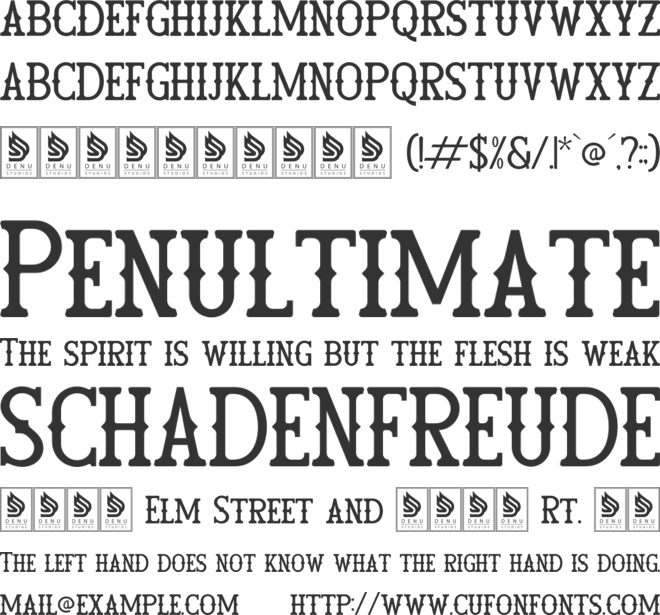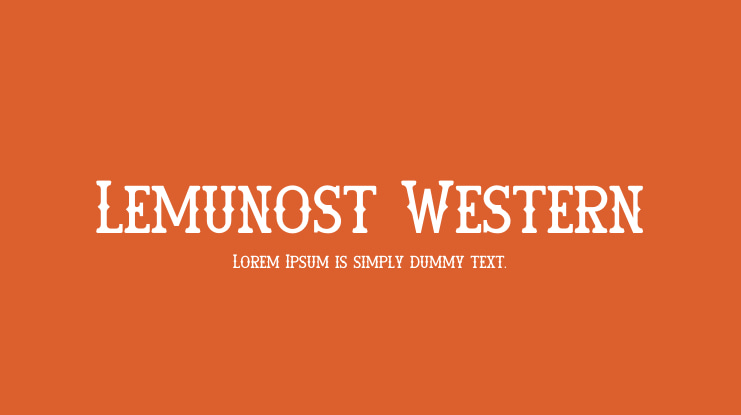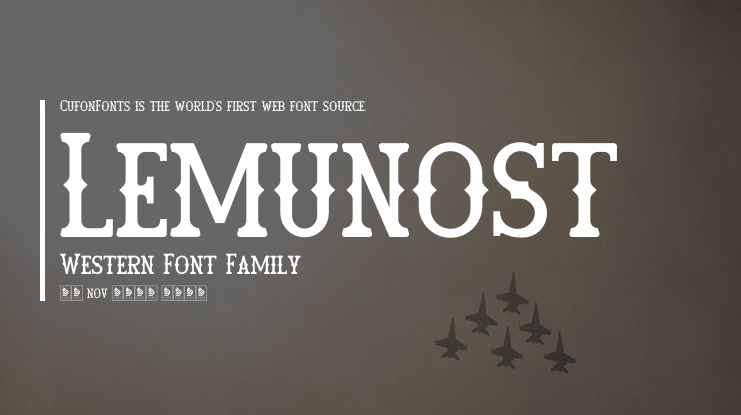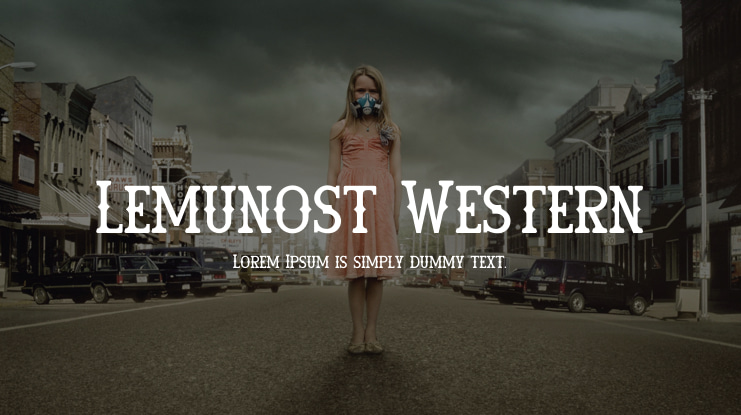
Lemunost Western is a stylish Slab Serif Font ideal for various projects such as logos, branding, homeware designs, product packaging, quotes, posters, and more. This font adds a unique touch to your projects that require a Slab Serif style.